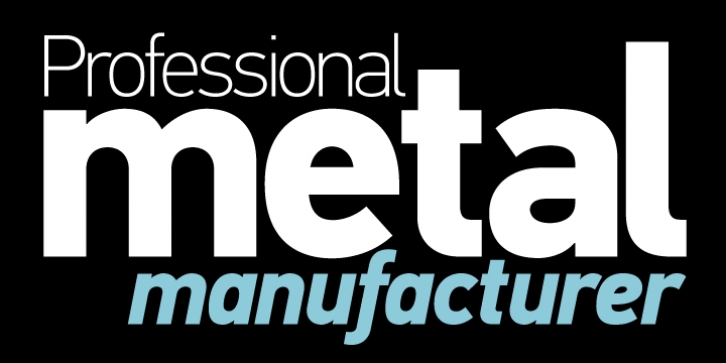
PF DIN Text Universal was designed by Panos Vassiliou and published by Parachute. PF DIN Text Universal contains 8 styles and family package options.
DIN Text Universal is the most advanced DIN superfamily ever. It combines the powerful DIN Text Pro with DIN Text Arabic bringing the number of glyphs to 3320 per font. In fact, this set of fonts contains the most complete and powerful array of arabic features commercially available. It supports all variations of the Arabic script such as Persian, Urdu and Pashto.
It is also enhanced with 30 advanced opentype features and kerning for all languages. The four major scripts Latin, Arabic, Cyrillic and Greek are now matched across the design of the whole family, respecting at the same time each one's modern cultural identity. With its vast array of weights, the extended support for numerous languages, its careful and detailed design, it will prove to be extremely valuable for many complex corporate projects and corporations which operate internationally.
· PF DIN Text Universal Hairline
· PF DIN Text Universal ExtraThin
· PF DIN Text Universal Thin
· PF DIN Text Universal Light
· PF DIN Text Universal Regular
· PF DIN Text Universal Medium
· PF DIN Text Universal Bold
· PF DIN Text Universal ExtraBlack